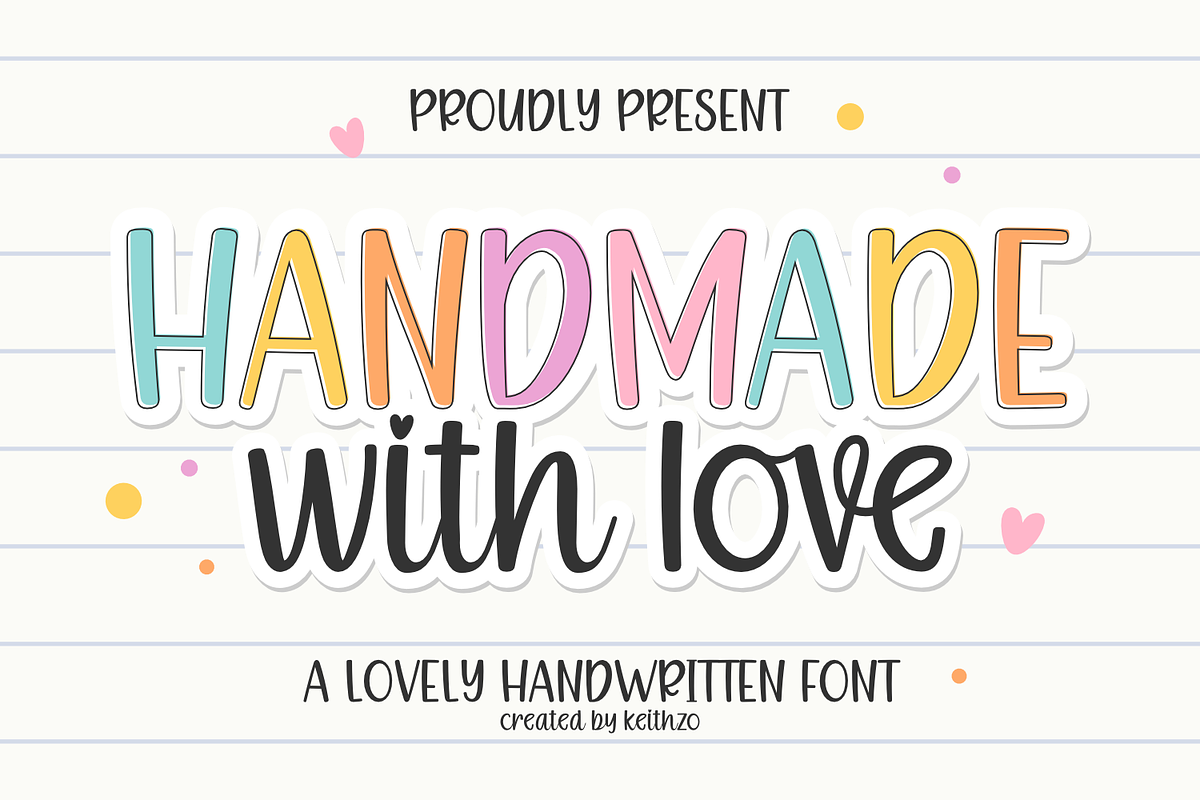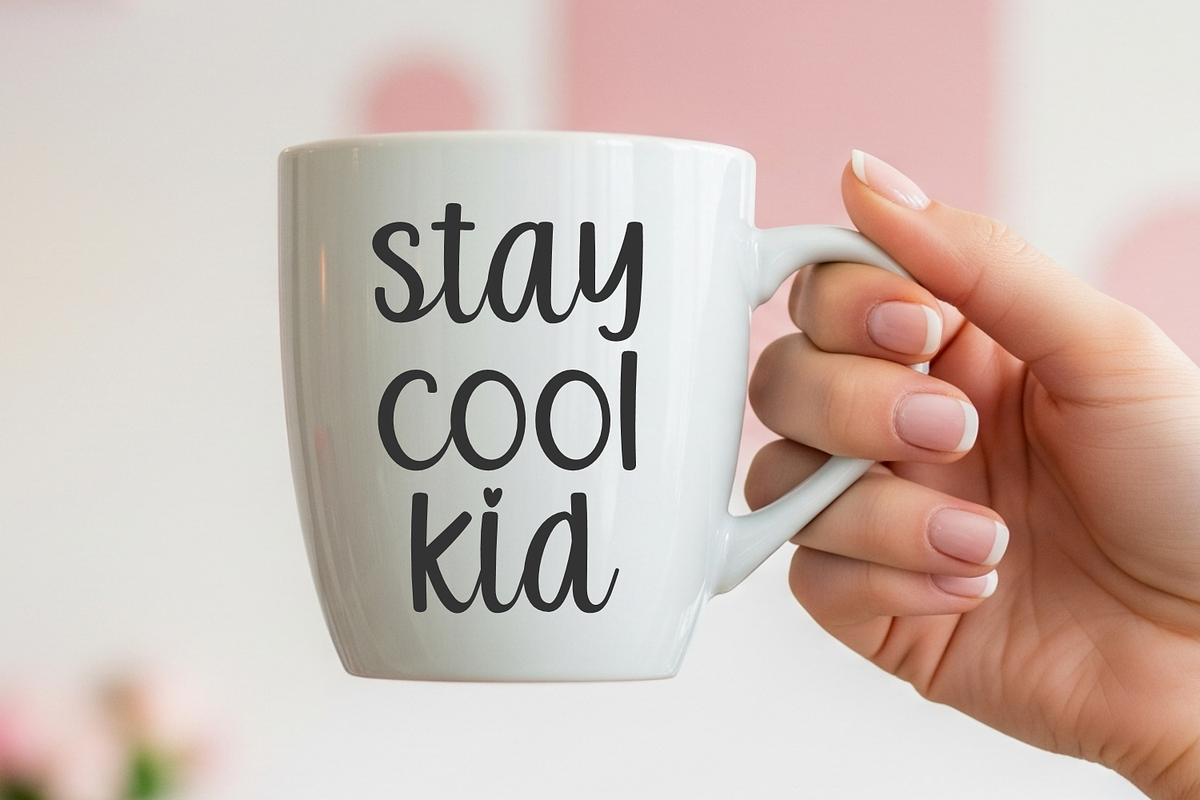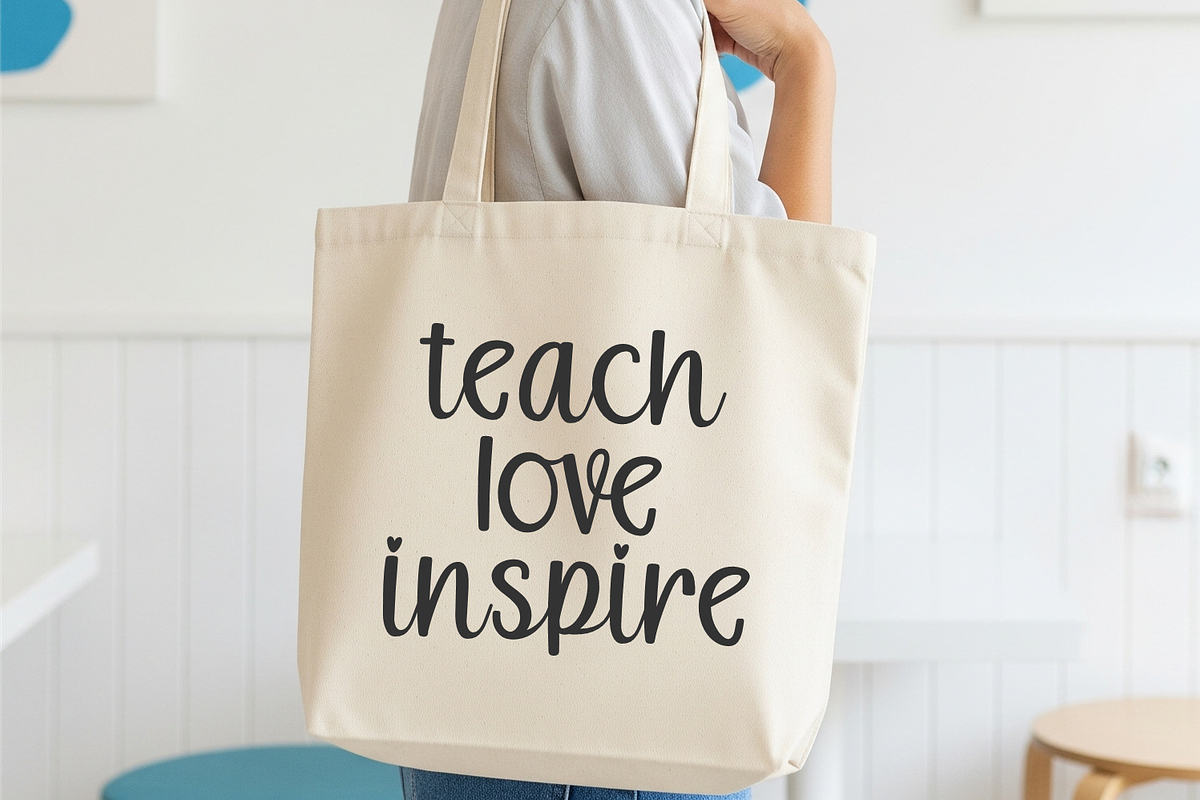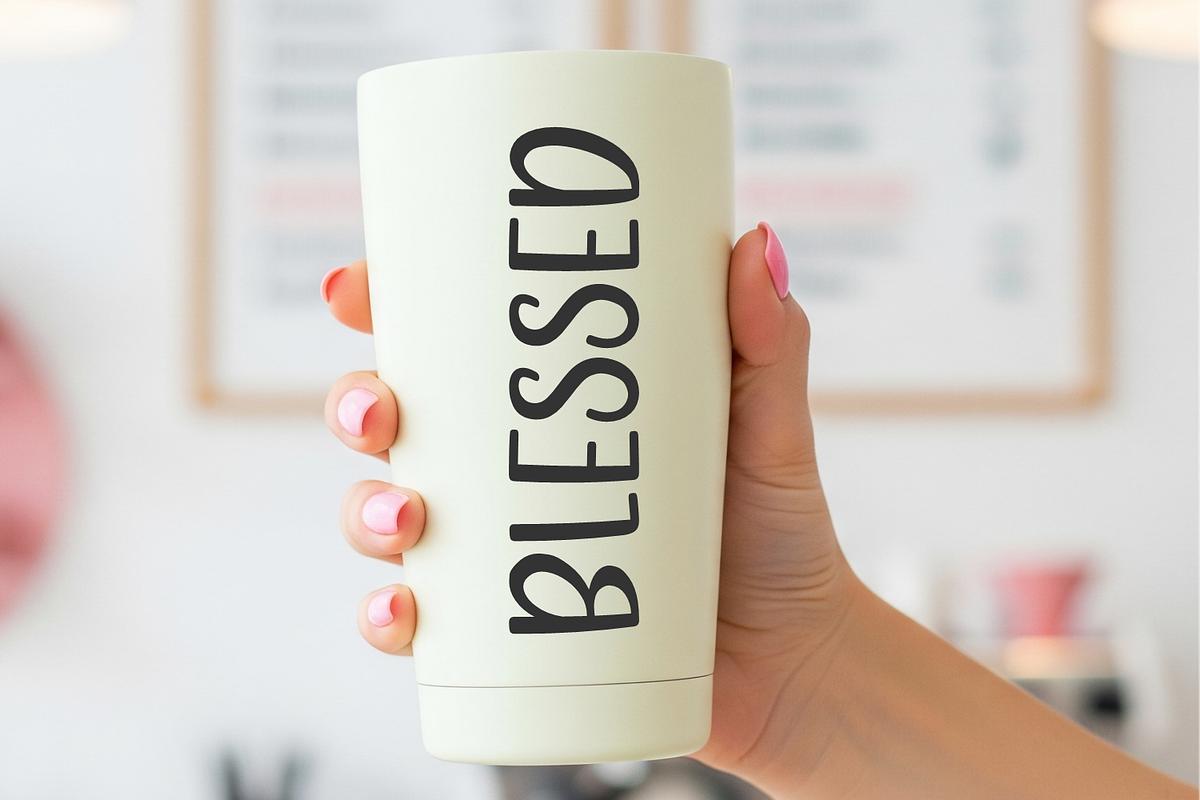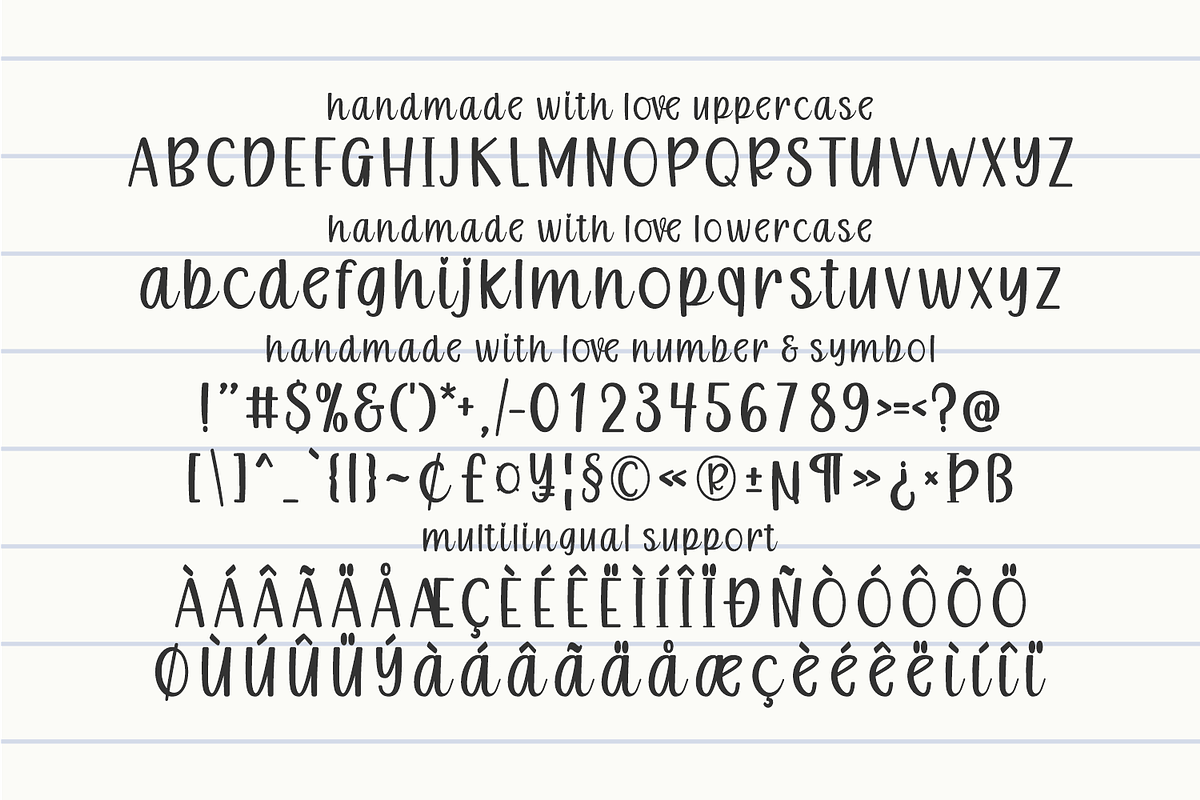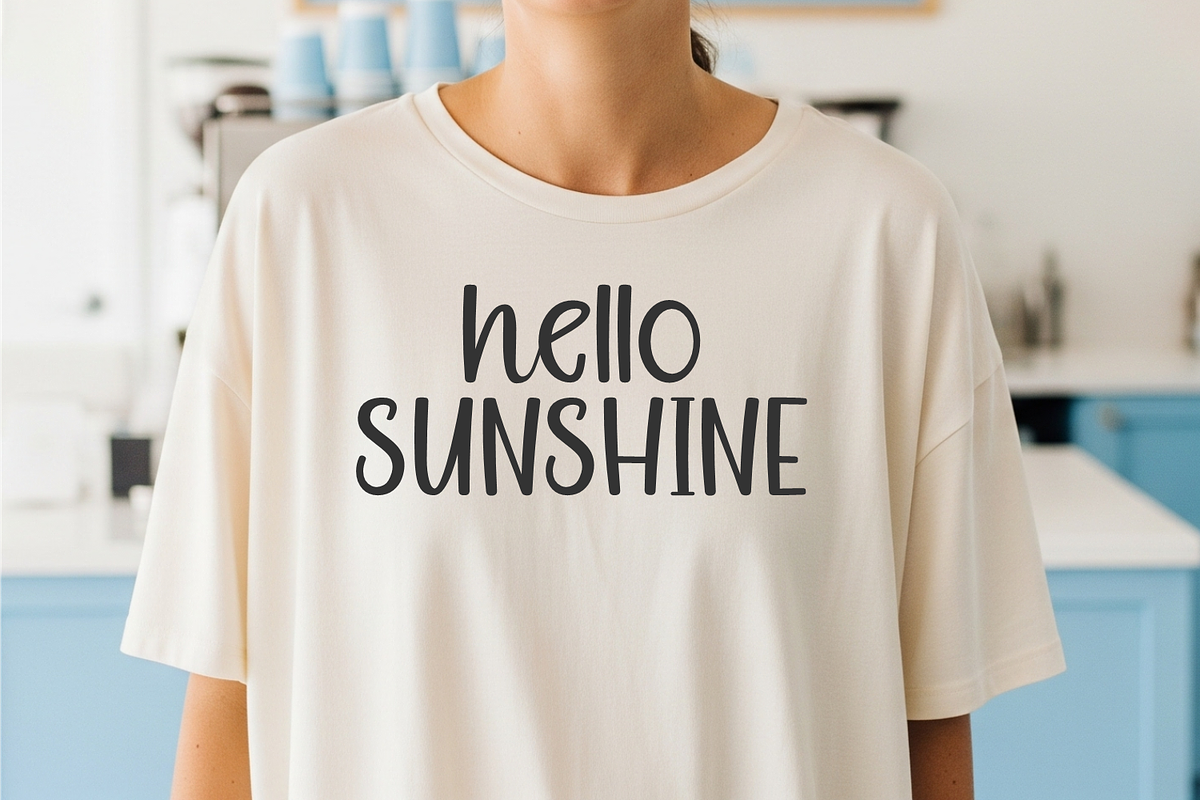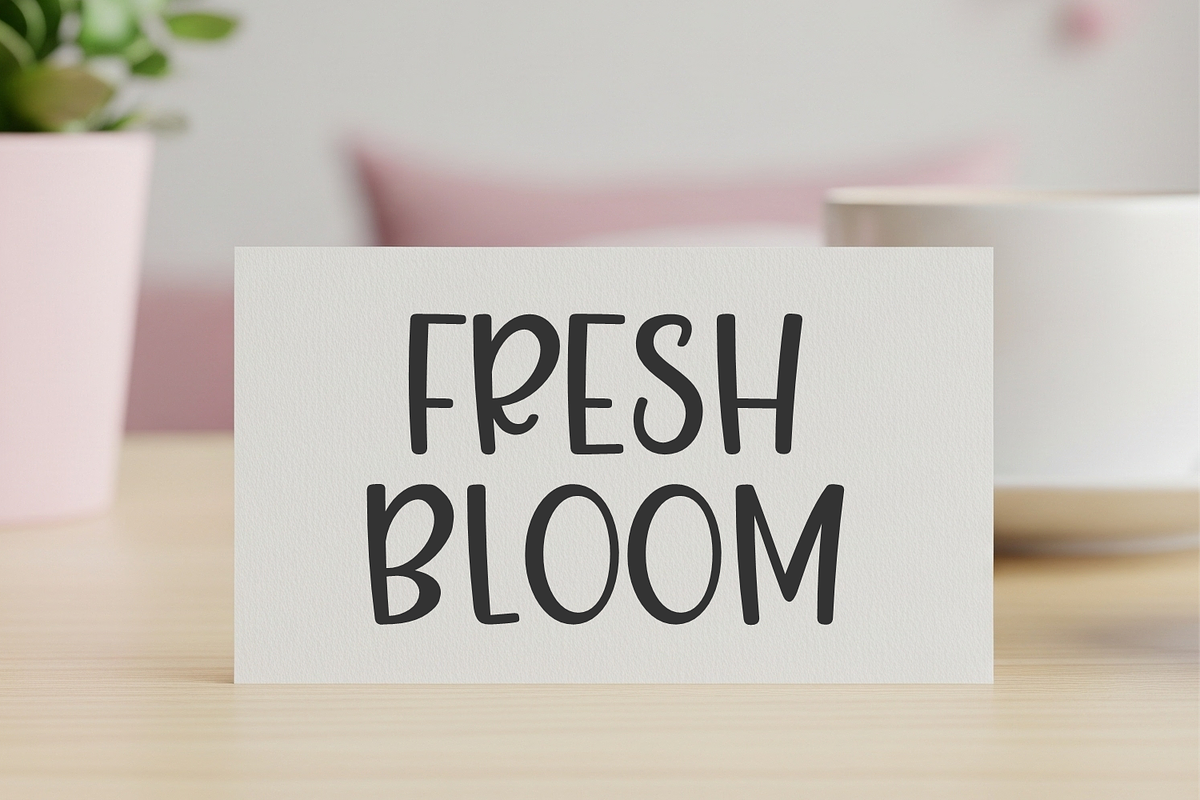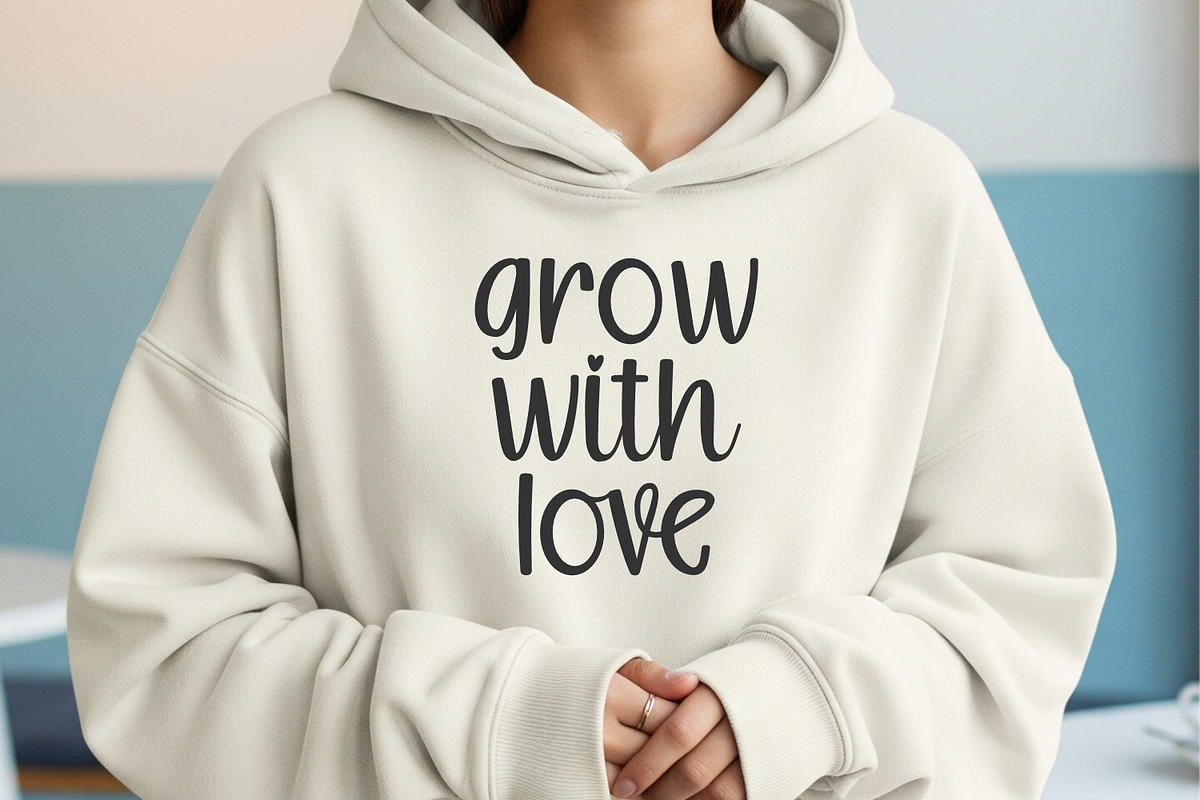
Handmade with Love
Introducing “Handmade with Love,” a delightful handcrafted font that infuses every design with warmth and authenticity. This enchanting handwritten typeface marries professional readability with a homey, handcrafted ambiance, making it an excellent companion for all creative connoisseurs seeking that perfect balance.
Its design is influenced by gentle, natural strokes, reflecting the genuine aesthetics of human handwriting, making it ideal for branding, logo design, and personal stationery. Thanks to neat lines and smooth edges, “Handmade with Love” ensures an effortless experience for both Cricut and Silhouette users, making it perfect for SVG designs, vinyl decals, and sublimation.
The inviting characters, alongside uncompromising legibility aspects, lend this artfully crafted font to be a preferred choice for educational endeavors, making it suitable for teacher fonts, classroom décor, and other educational resources. Witness the magic that “Handmade with Love” can bring to your creative pursuits.